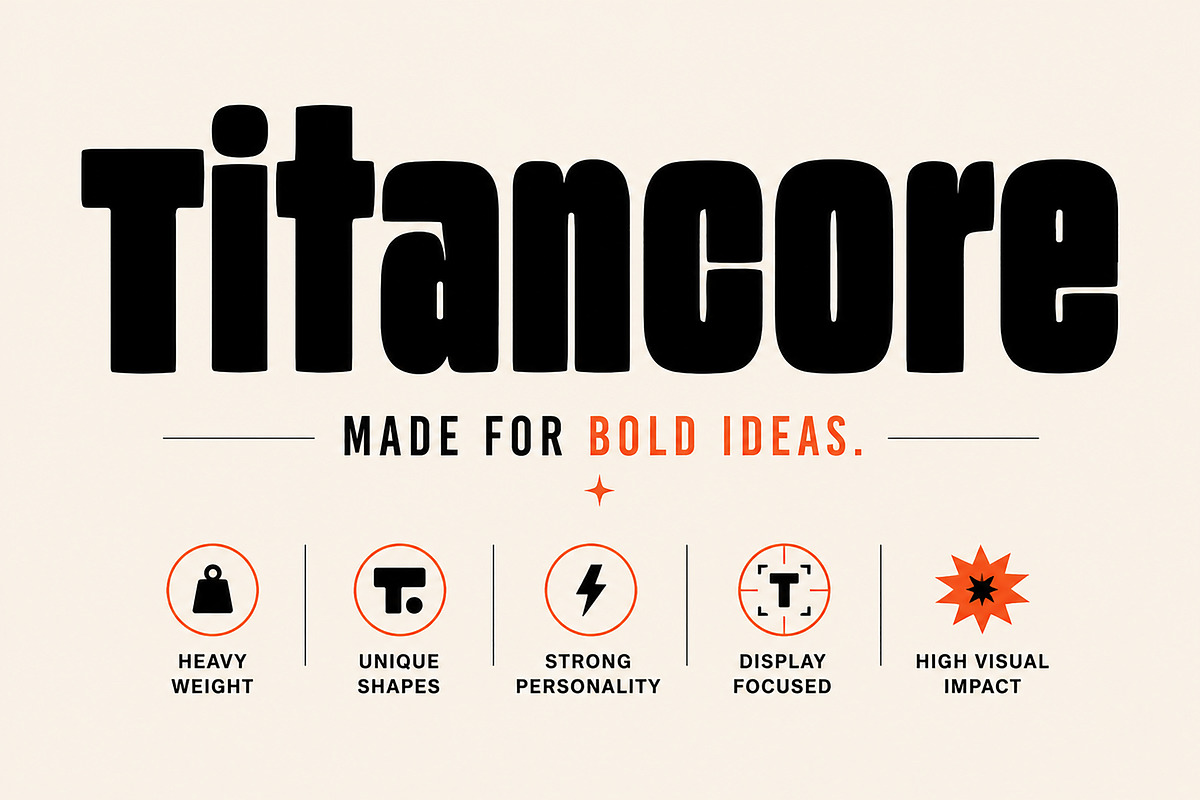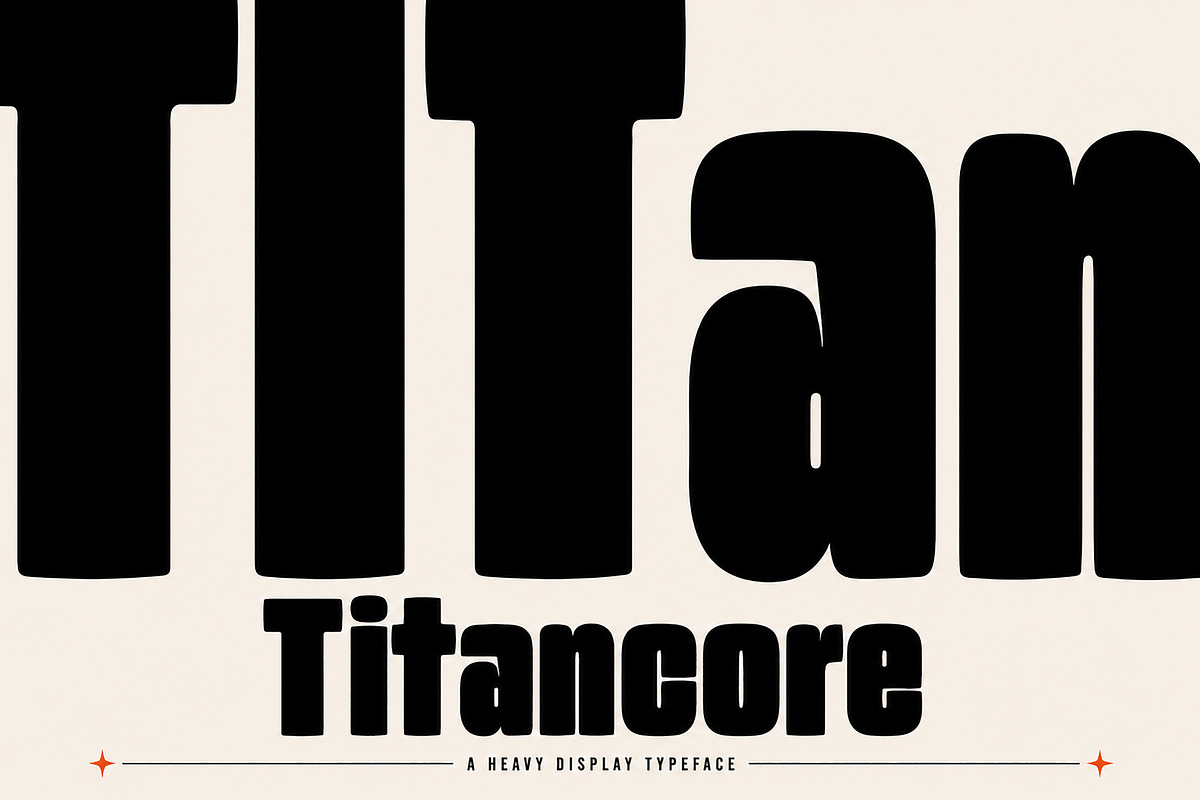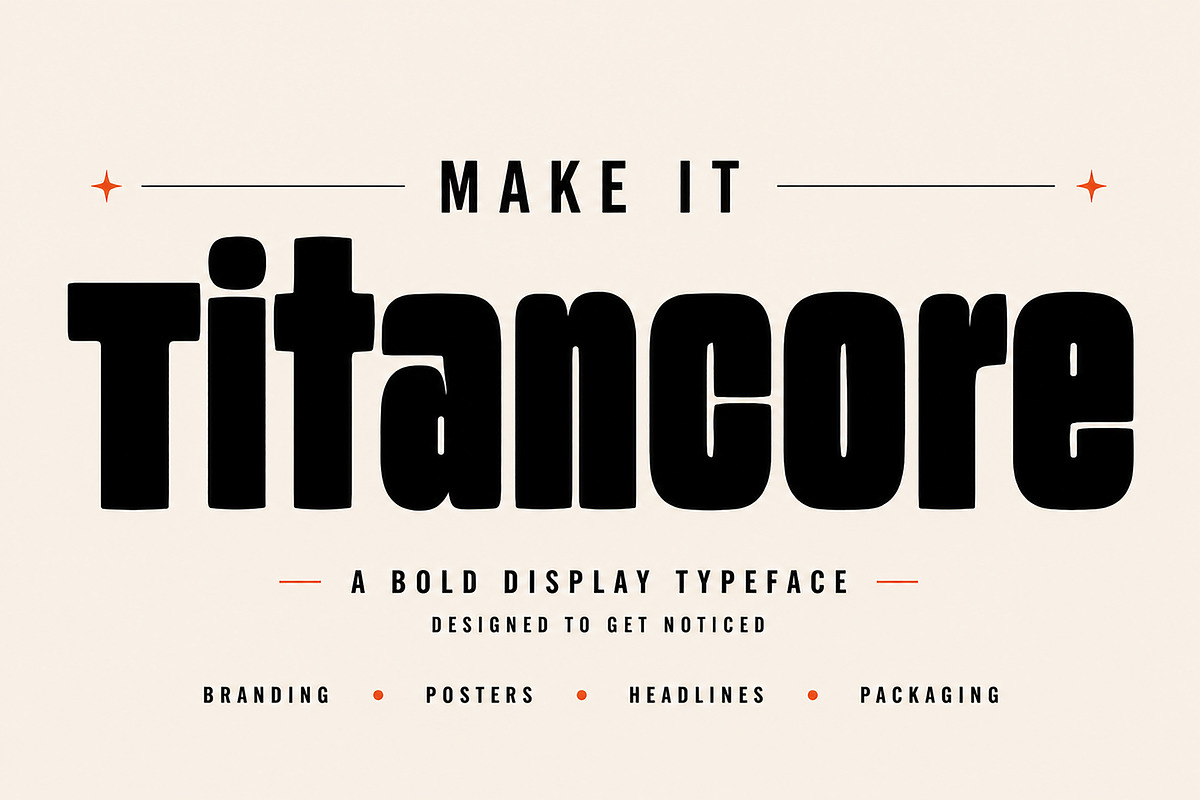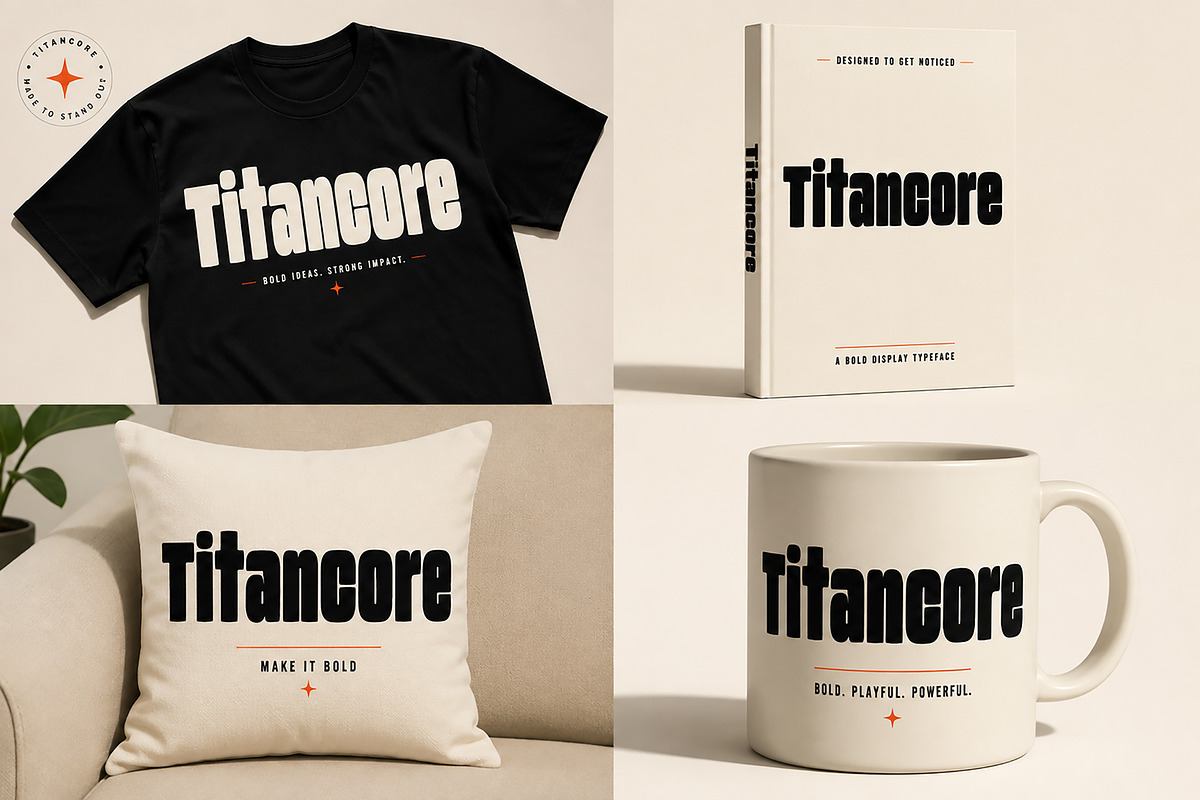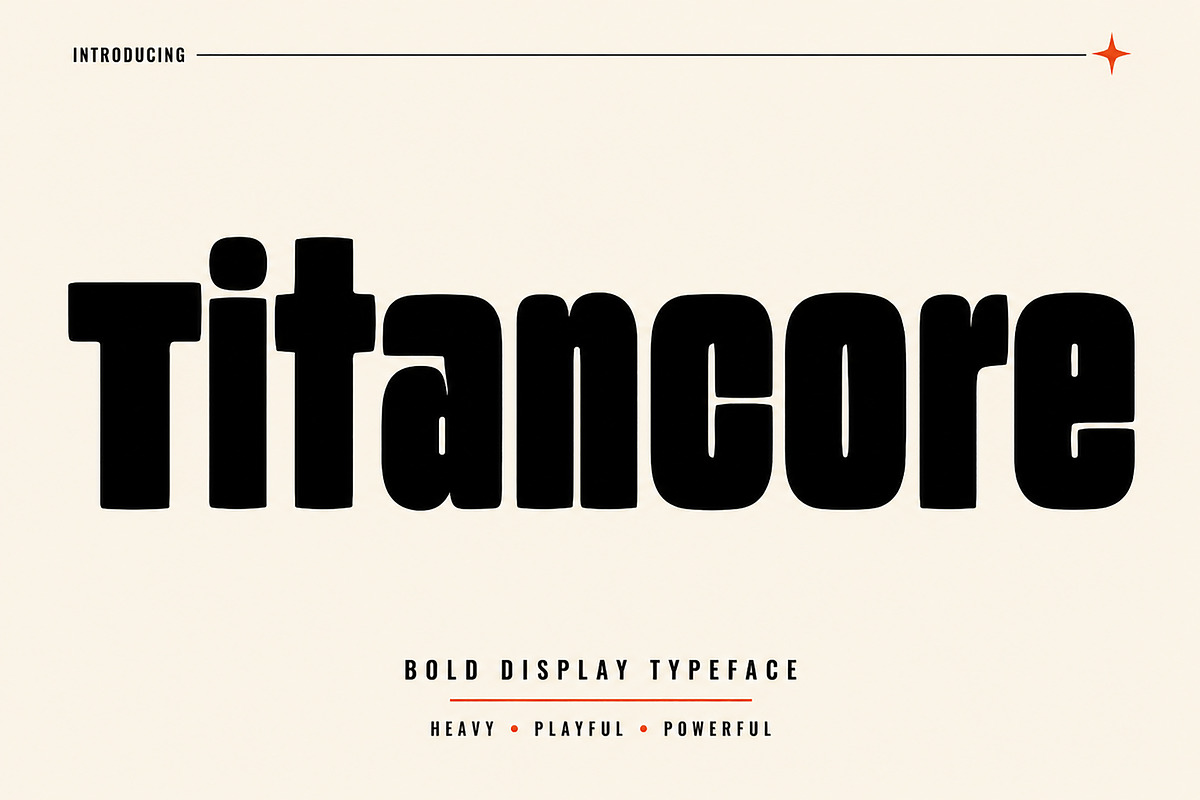
TITANCORE
# Titancore — Bold Display Typeface
Big. Bold. Built to Get Noticed.
Meet Titancore, a bold display typeface with a heavy, playful personality and distinctive letter shapes. Designed to make a strong visual statement, Titancore brings instant character and impact to headlines, posters, branding, packaging, merchandise, and other attention-grabbing creative projects.
Its chunky forms and confident proportions give your typography a powerful presence while keeping the overall look fun, modern, and memorable.
Whether you're creating a bold brand identity, an eye-catching poster, a statement T-shirt, or standout packaging, Titancore is made for designs that refuse to blend in.
## ✦ Perfect For
* Branding & Logo Design
* Posters & Advertising
* Bold Headlines
* Packaging Design
* T-Shirt & Apparel Design
* Merchandise
* Book & Editorial Covers
* Social Media Graphics
* Promotional Materials
* Creative Display Typography
## ✦ Font Features
* Heavy & Bold Display Style
* Unique Letter Shapes
* Strong Visual Personality
* High-Impact Typography
* Playful Yet Powerful Look
* Ideal for Large Headlines & Display Use
## ✦ Make Your Ideas Impossible to Ignore
Titancore is all about bold shapes, strong personality, and visual impact. Use it big, give it space, and let the typography become the centerpiece of your design.